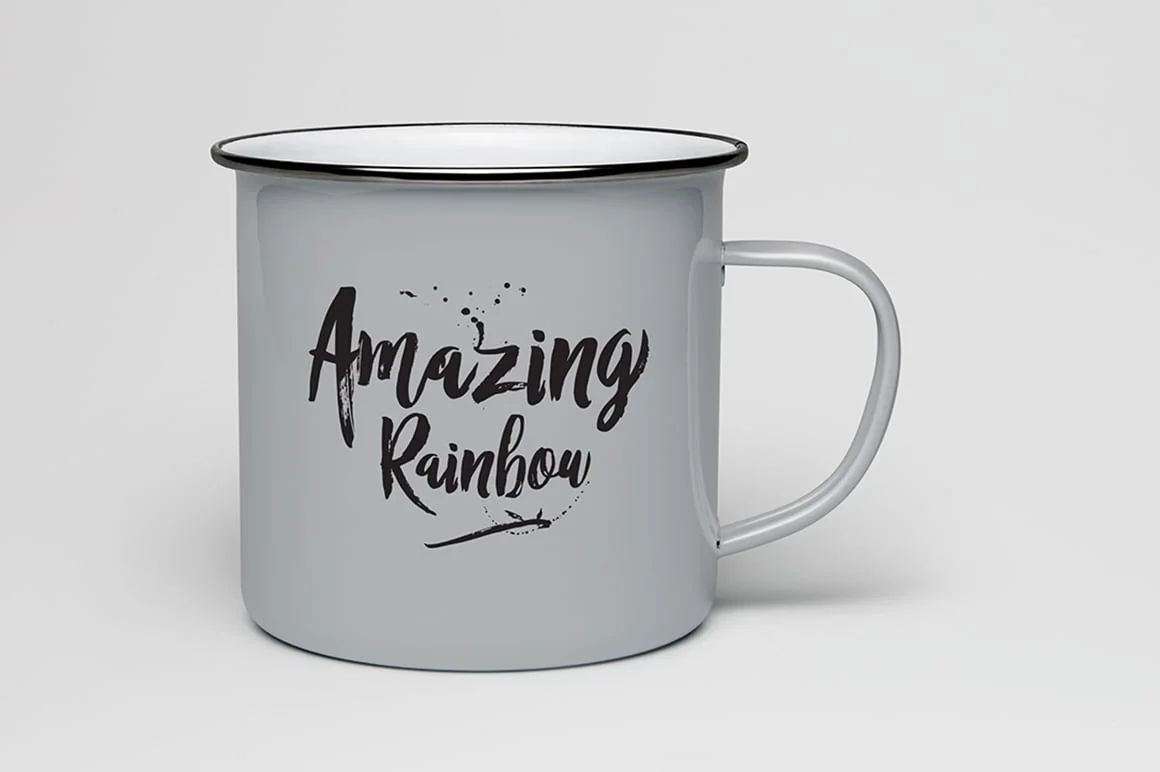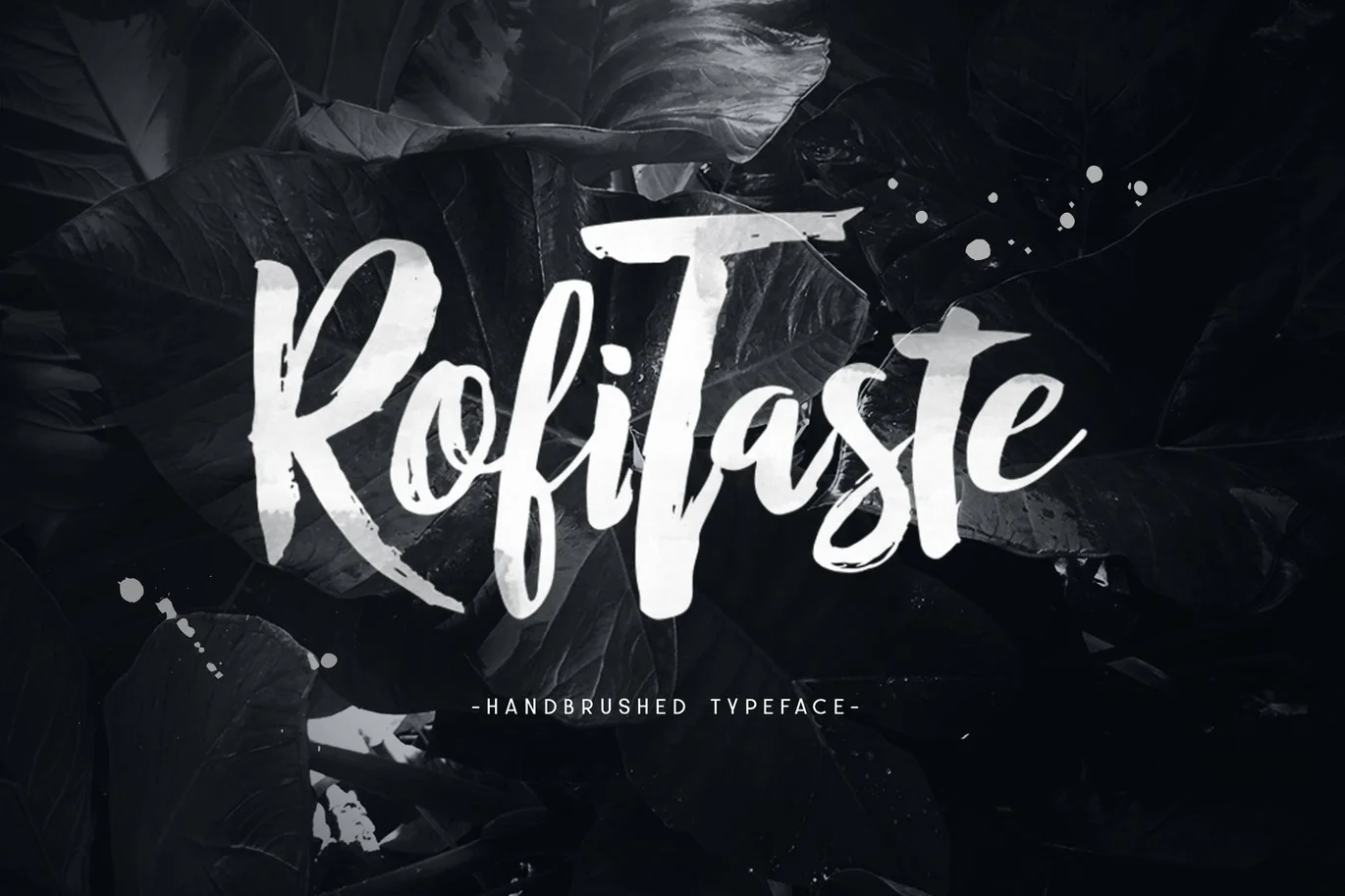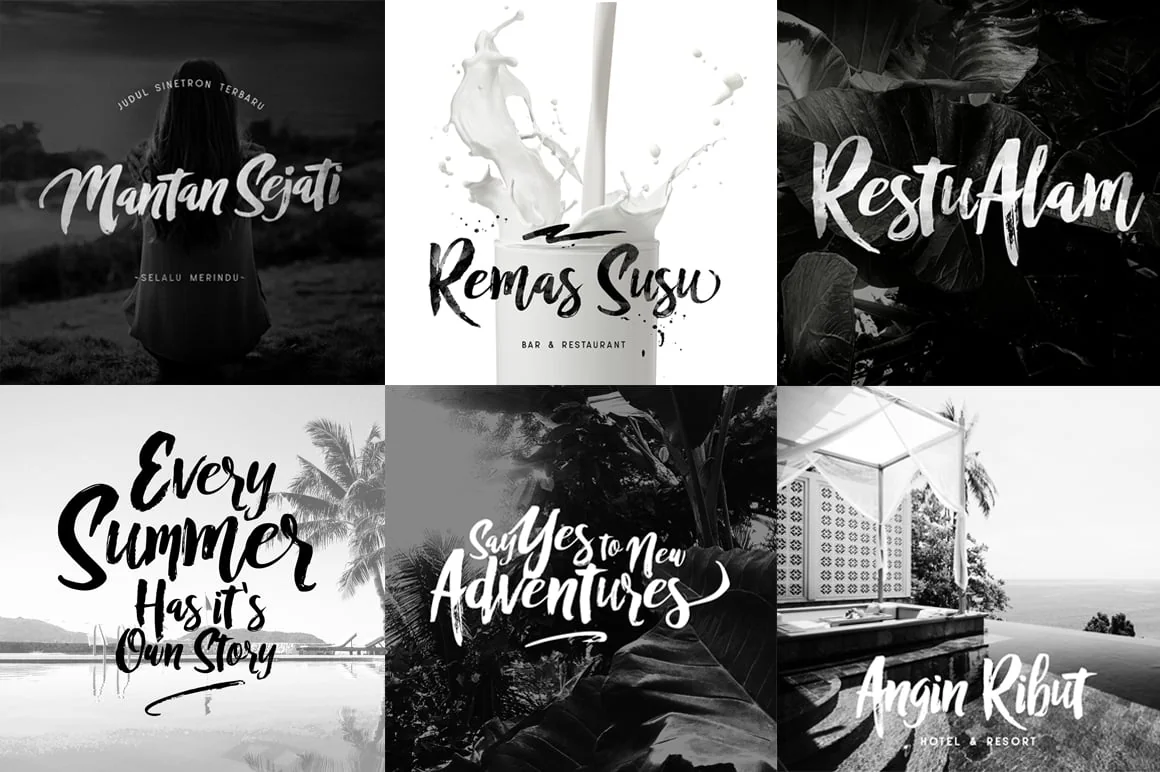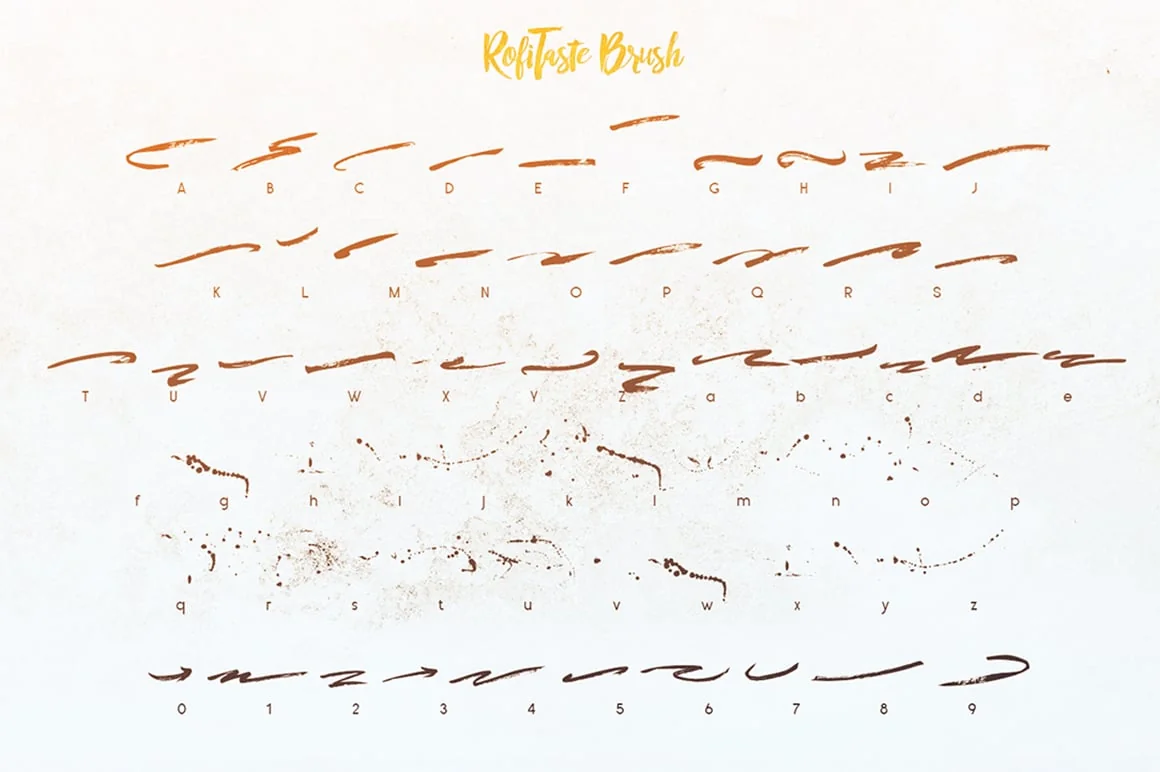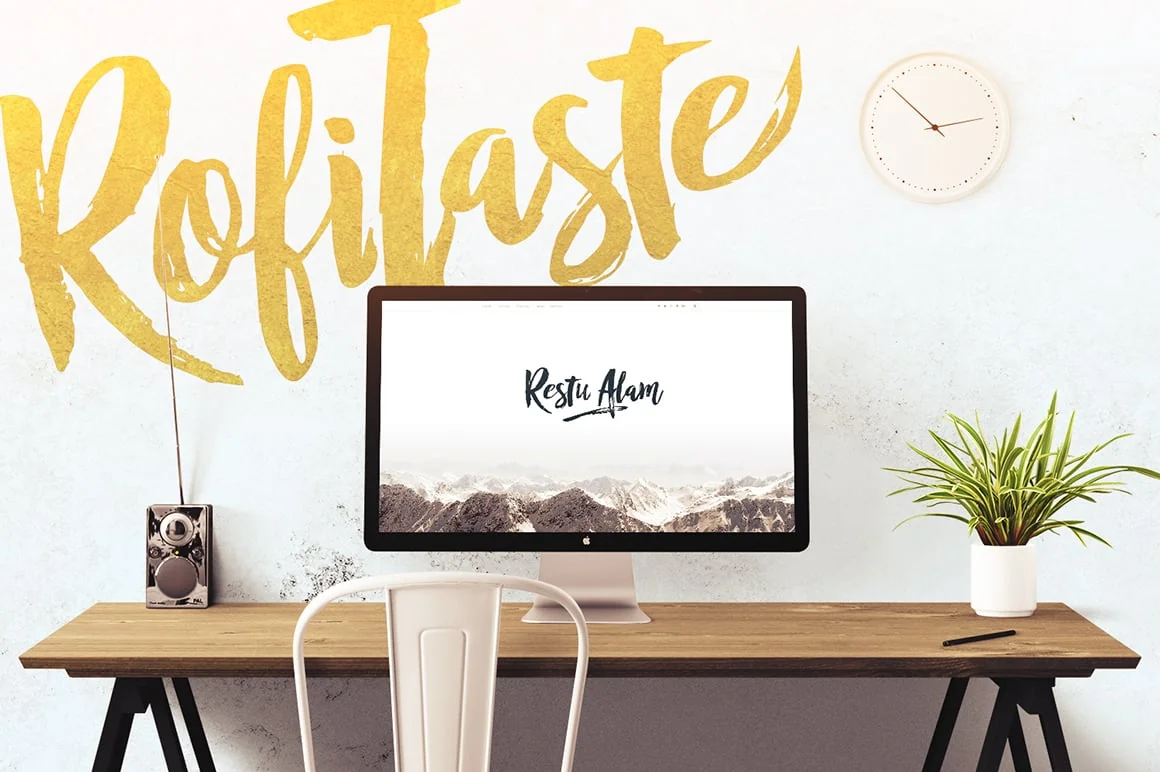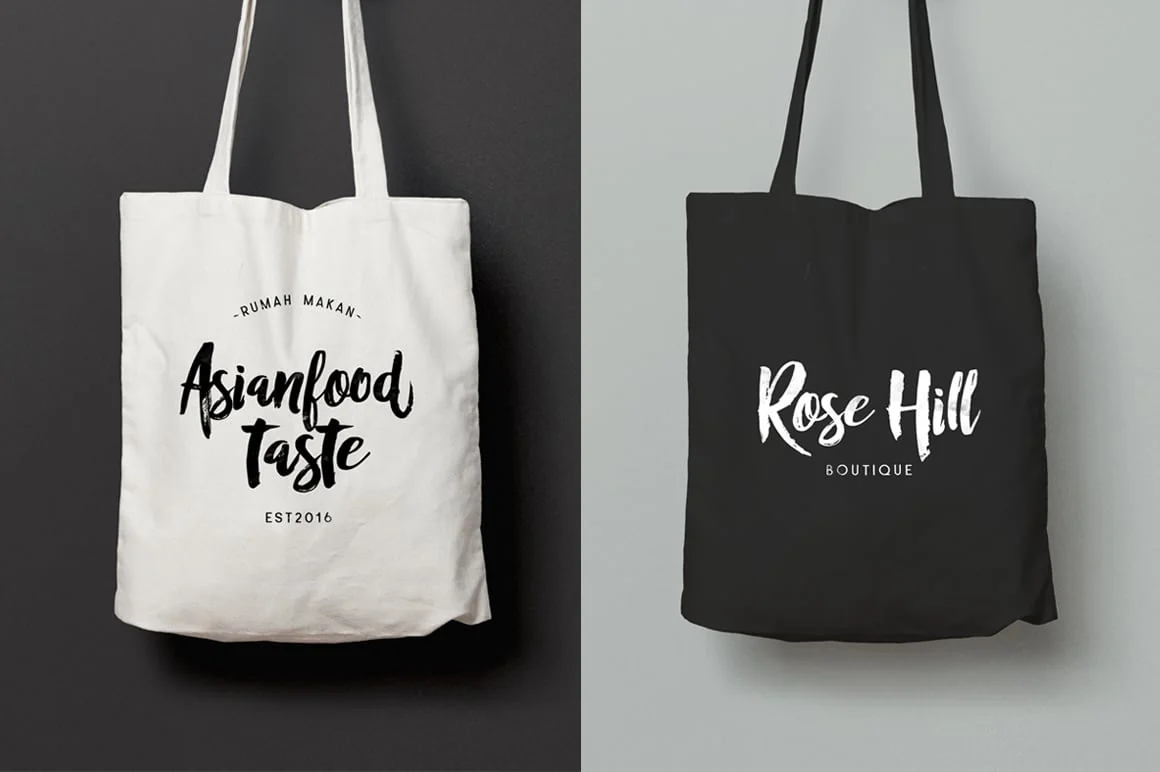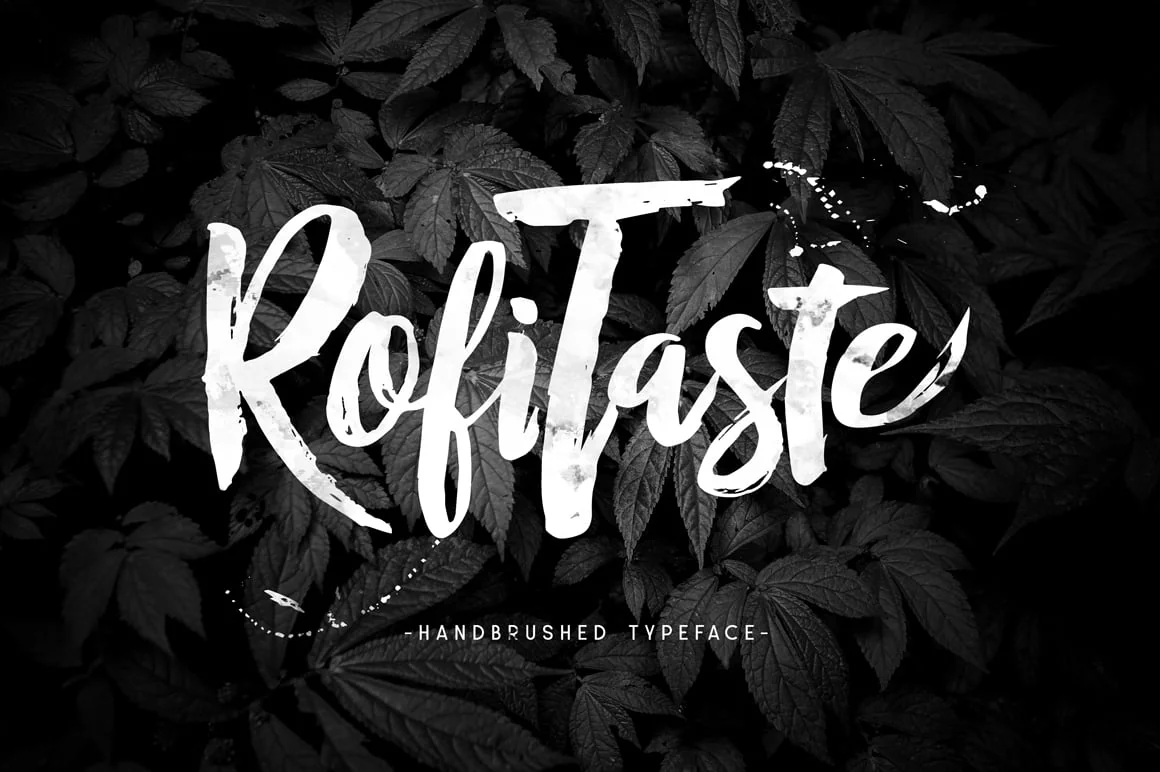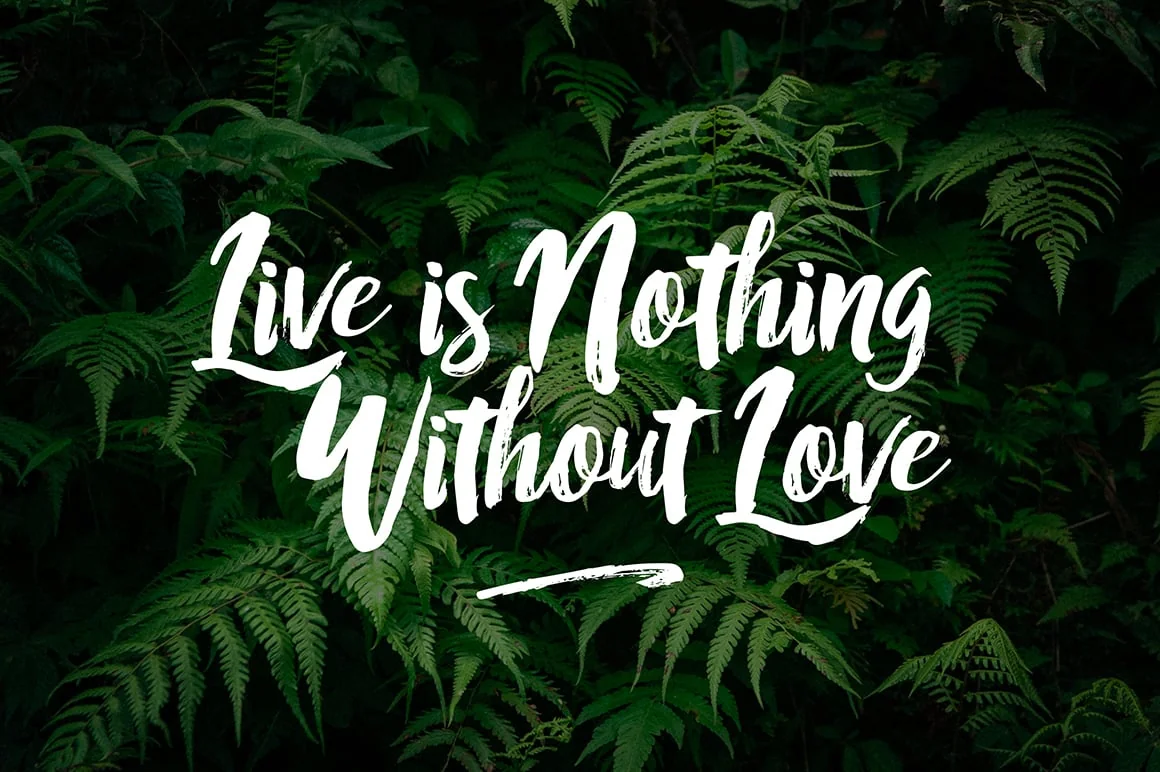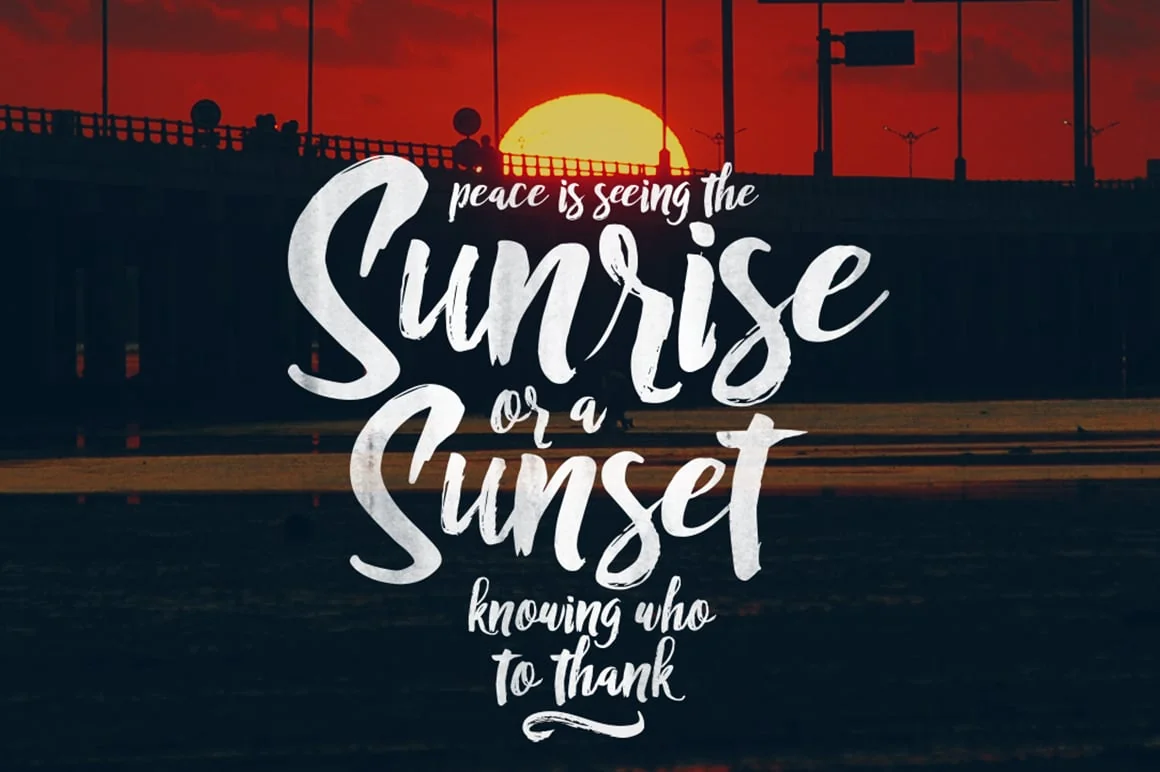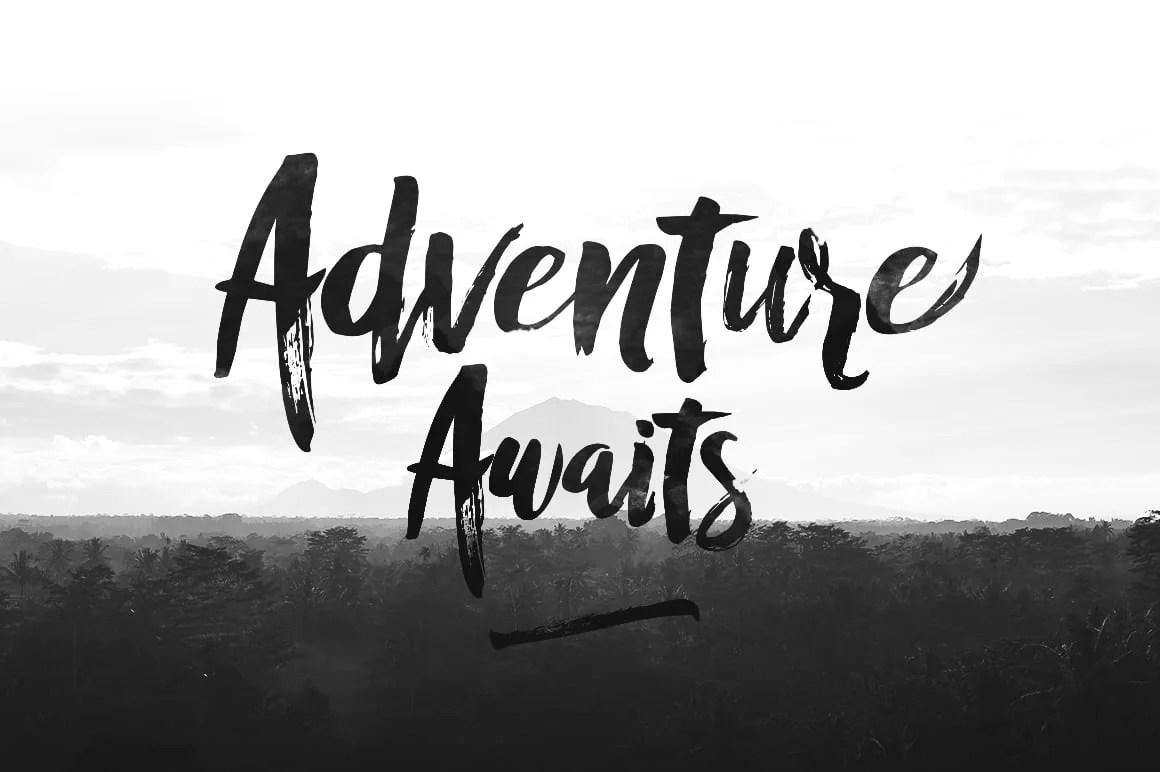
RofiTaste Typeface
Introducing RofiTaste Hand brushed typeface , font is designed with a unique use of dry brush that creates the character of grunge brush. RofiTaste typeface excellent used for the manufacture quote text, logotype, header magazine, t-shirt design and concept handmade designs.